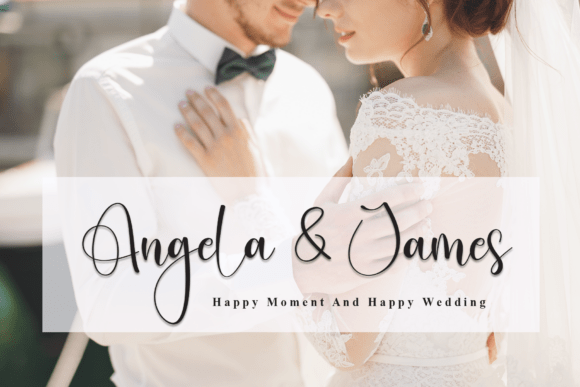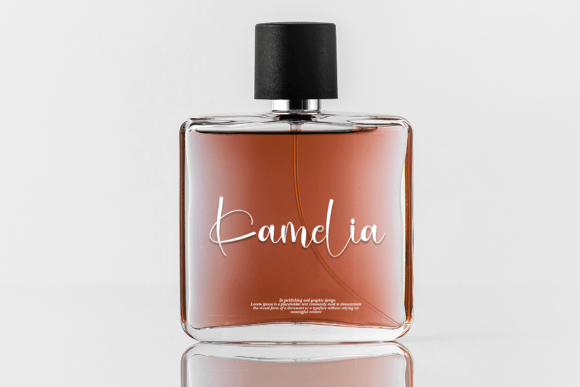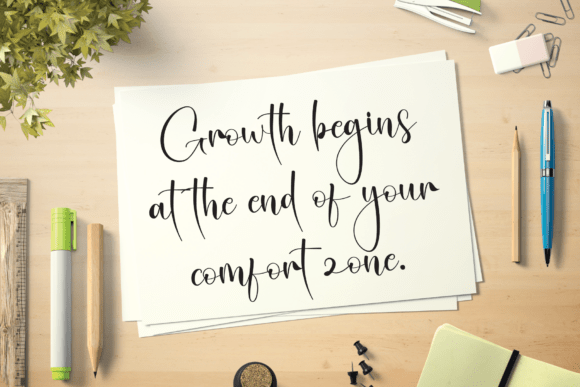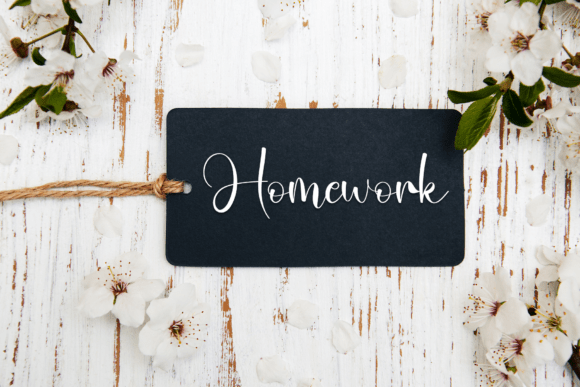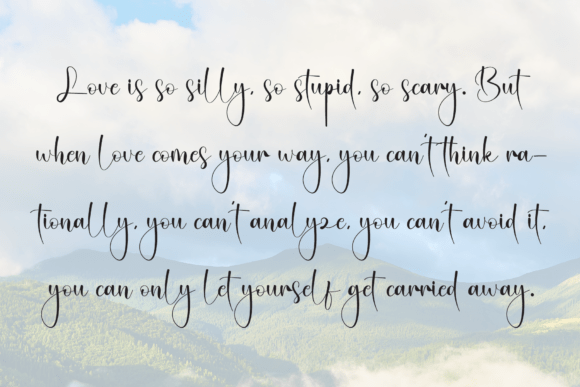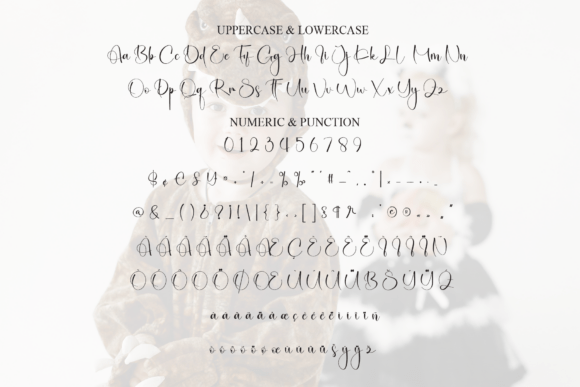
Introducing Costume Font: Elevate Your Designs with Fresh Elegance
Are you on the hunt for a typeface that embodies the essence of renewal and sophistication? Look no further than Costume Font, a stylish handwritten script font that is sure to captivate your audience with its delicate charm and effortless elegance. In this article, we’ll dive into the world of Costume Font, exploring its unique features, uses, and benefits for designers and crafters alike.
The Essence of Costume Font
Costume Font is a beautiful, handwritten script typeface that exudes a sense of refinement and poise. Its flowing strokes and gentle curves create a soft, uplifting feel that is perfect for a variety of design applications, from invitations and branding to seasonal designs and more. This lovely typeface is designed to add a personal touch to any project, making it an excellent choice for designers seeking to create a lasting impression.
Key Features of Costume Font
- Fresh Elegance: Costume Font boasts a modern, sophisticated aesthetic that is sure to elevate your designs.
- Delicate Charm: The font’s gentle curves and flowing strokes evoke a sense of whimsy and playfulness.
- Versatility: Costume Font is suitable for a wide range of design applications, from formal invitations to seasonal decor.
- Personal Touch: This lovely typeface adds a soft, personal touch to any project, making it perfect for designers seeking to create a unique and lasting impression.
Uses for Costume Font
Costume Font is an incredibly versatile typeface that can be used in a variety of design contexts. Here are just a few ideas to get you started:
- Invitations: Use Costume Font to create beautiful, elegant invitations for weddings, baby showers, and other special occasions.
- Branding: Add a touch of sophistication to your brand with Costume Font, perfect for logos, packaging, and marketing materials.
- Seasonal Designs: Create stunning seasonal designs, such as holiday cards, Easter egg designs, and summer-themed decor, with Costume Font.
- Stationery: Use Costume Font to create lovely stationery, including greeting cards, letterheads, and gift tags.
Tips for Using Costume Font
To get the most out of Costume Font, here are a few tips to keep in mind:
- Pair with contrasting fonts: Combine Costume Font with bold, modern fonts to create a striking contrast.
- Experiment with colors: Try pairing Costume Font with pastel colors, metallic accents, or rich jewel tones to add depth and interest.
- Play with textures: Add a tactile element to your designs by pairing Costume Font with textured backgrounds or illustrations.
In conclusion, Costume Font is a stunning, stylish handwritten script font that is sure to elevate your designs with its fresh elegance and delicate charm. With its versatility, range of uses, and beautiful aesthetic, Costume Font is an excellent addition to any designer’s toolkit. Whether you’re creating invitations, branding materials, or seasonal designs, this lovely typeface is sure to make a lasting impression.